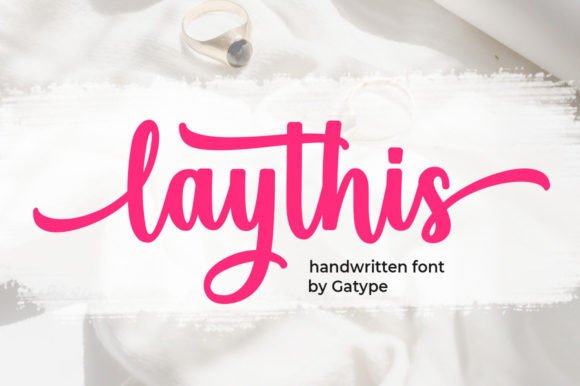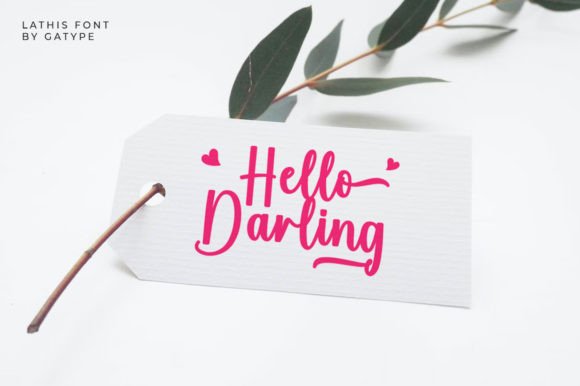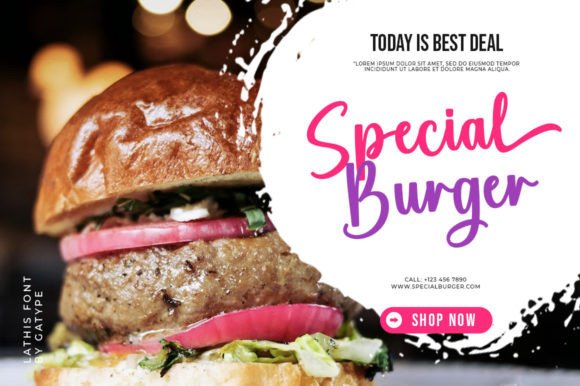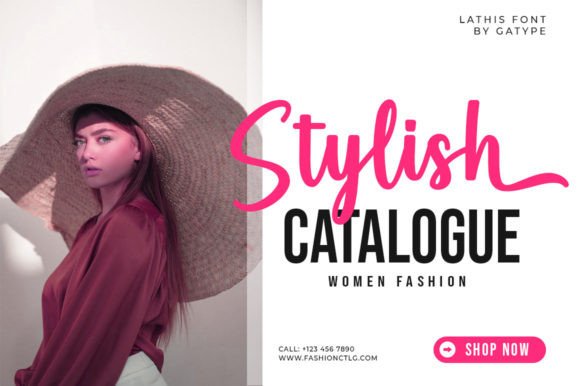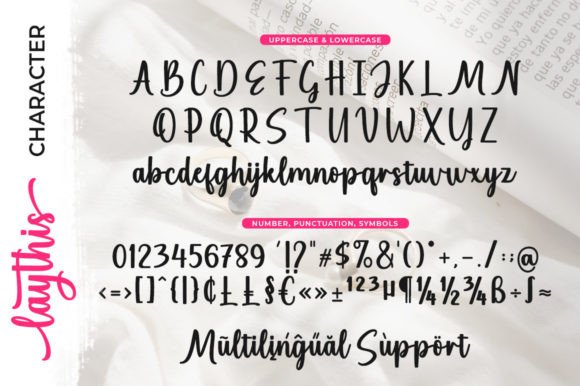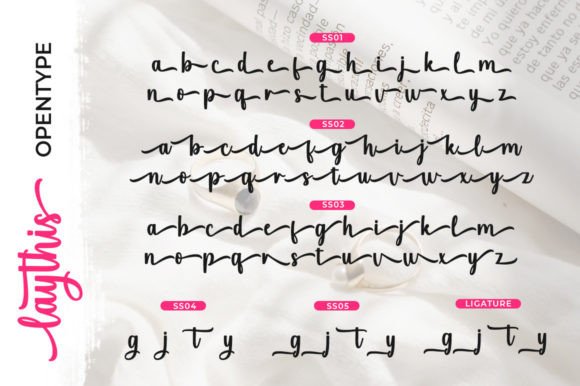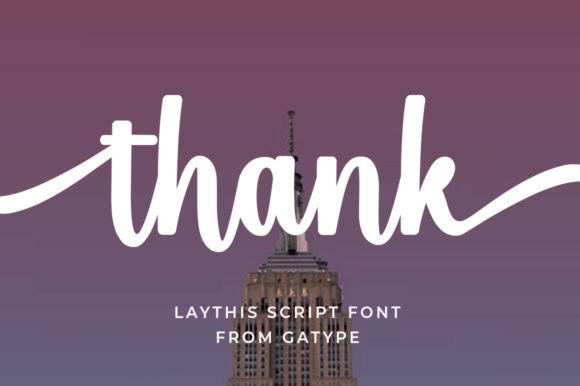
Laythis Font
What Is Laythis Font?
Laythis Font is a stunning modern signature script designed to bring elegance and sophistication to any project. Its fluid strokes and balanced letterforms create a sleek, contemporary look that feels polished and refined. This combination of modern style and classic beauty makes Laythis Font an ideal choice for designers who want to create work that feels upscale and memorable.
The font also offers a variety of ligatures and alternate characters, giving you the flexibility to customize your designs and create unique typographic compositions that stand out.
Laythis Font is highly versatile and adapts beautifully to many different applications. For example, it’s perfect for branding materials such as logos, business cards, and letterheads. The signature style helps your brand look professional, sophisticated, and distinctive.
Wedding invitations and stationery also benefit from Laythis Font’s elegant design. The refined script adds a luxurious touch to save-the-date cards, place cards, menus, and thank-you notes, creating an unforgettable experience for guests.
If you work in editorial design, Laythis Font is a great choice for magazines, feature quotes, and cover titles. Its smooth lines and clean proportions bring a modern edge to print layouts.
This font is also ideal for social media graphics and digital promotions. Whether you’re designing inspirational quotes, product announcements, or branded content, Laythis Font ensures your visuals look cohesive and stylish.
Additionally, Laythis works well for merchandise and product packaging. From mugs and apparel to luxury skincare labels, the font’s elegant script adds a touch of sophistication that customers will appreciate.
Why Should You Choose Laythis Font?
One of the top reasons to choose Laythis Font is its readability. Despite its sophisticated script style, every letter remains clear and legible at any size. Whether you’re creating a small tag or a large poster, your text will look sharp and professional.
Another advantage is how easily it pairs with other typefaces. You can combine Laythis Font with minimalist serif or sans-serif fonts to create balanced, modern layouts. This approach keeps your designs clean while adding personality.
Designers love that Laythis saves time while maintaining a premium look. Each glyph is crafted to look polished out of the box, so you can deliver high-quality work faster.
Laythis Font brings sophistication, clarity, and modern style to your projects. The fluid, confident strokes help you communicate elegance and professionalism in any context. This connection is especially important for branding, events, or products that need to make a strong first impression.
Its graceful letterforms add a sense of motion and personality to your layouts. Even simple designs feel more dynamic and compelling when you use Laythis Font.
Choosing a high-quality signature script demonstrates your commitment to detail and thoughtful design. Clients and customers will notice this effort, helping you build credibility and strengthen your brand’s reputation.
Laythis Font is more than just a modern signature script—it’s a versatile design tool that helps you share ideas with sophistication and impact. From logos and wedding invitations to social media graphics and packaging, this font adapts to many uses and always leaves a lasting impression.